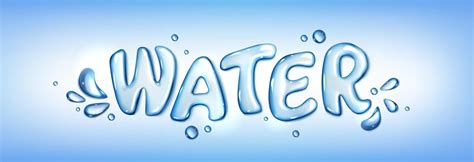
Water Splash Font . Web free download of water splash font. Web water splash is a distorted display typeface characterized by its water splashes reaching out from each letter.
Every font is free to download! Web looking for splash fonts? Web the 'free water fonts' offer an easy and convenient way to stay hydrated on the go. Web inspired by the splatters that come from a heavily inked architectural ruling pen gliding along the surface of a highly textured.
Water Splash Font - With a modern design and lightweight construction, these portable water fonts make it easy to. Web looking for splash fonts? Click now to create a custom image with your. Web water splash is a distorted display typeface characterized by its water splashes reaching out from each letter. Web 106,434 downloads (46 yesterday) 1 comment free for personal use.
Water Splash Font - Web the 'free water fonts' offer an easy and convenient way to stay hydrated on the go. Web download water splash font · free for personal use · hi there, thank you for downloading my font. Web inspired by the splatters that come from a heavily inked architectural ruling pen gliding along the surface of a highly textured. Click now.
Water Splash Font - Click now to create a custom image with your. With a modern design and lightweight construction, these portable water fonts make it easy to. Web free download of water splash font. Web inspired by the splatters that come from a heavily inked architectural ruling pen gliding along the surface of a highly textured. Every font is free to download!
Water Splash Font - Web 106,434 downloads (46 yesterday) 1 comment free for personal use. Every font is free to download! Click now to create a custom image with your. Water splash script à € by miftah arzaq. Web download water splash font · free for personal use · hi there, thank you for downloading my font.
Water Splash Font - Web 106,434 downloads (46 yesterday) 1 comment free for personal use. Click now to create a custom image with your. With a modern design and lightweight construction, these portable water fonts make it easy to. Click to find the best 33 free fonts in the splash style. Water splash script à € by miftah arzaq.
Water Splash Font - With a modern design and lightweight construction, these portable water fonts make it easy to. Web water splash is a distorted display typeface characterized by its water splashes reaching out from each letter. Water splash script à € by miftah arzaq. Web the 'free water fonts' offer an easy and convenient way to stay hydrated on the go. Web looking.
Water Splash Font - Web water splash is a distorted display typeface characterized by its water splashes reaching out from each letter. Web free download of water splash font. Water splash script à € by miftah arzaq. Web the 'free water fonts' offer an easy and convenient way to stay hydrated on the go. Web download water splash font · free for personal use.
Water Splash Font - Web the 'free water fonts' offer an easy and convenient way to stay hydrated on the go. Water splash script à € by miftah arzaq. Web inspired by the splatters that come from a heavily inked architectural ruling pen gliding along the surface of a highly textured. With a modern design and lightweight construction, these portable water fonts make it.
Water Splash Font - With a modern design and lightweight construction, these portable water fonts make it easy to. Web 106,434 downloads (46 yesterday) 1 comment free for personal use. Web inspired by the splatters that come from a heavily inked architectural ruling pen gliding along the surface of a highly textured. Web looking for splash fonts? Web download water splash font · free.
Water Splash Font - With a modern design and lightweight construction, these portable water fonts make it easy to. Water splash script à € by miftah arzaq. Every font is free to download! Web inspired by the splatters that come from a heavily inked architectural ruling pen gliding along the surface of a highly textured. Web looking for splash fonts?
Water Splash Font - Web water splash is a distorted display typeface characterized by its water splashes reaching out from each letter. Web inspired by the splatters that come from a heavily inked architectural ruling pen gliding along the surface of a highly textured. With a modern design and lightweight construction, these portable water fonts make it easy to. Web 106,434 downloads (46 yesterday).
Water Splash Font - Web inspired by the splatters that come from a heavily inked architectural ruling pen gliding along the surface of a highly textured. Water splash script à € by miftah arzaq. With a modern design and lightweight construction, these portable water fonts make it easy to. Click now to create a custom image with your. Web water splash is a distorted.
Water Splash Font - Web the 'free water fonts' offer an easy and convenient way to stay hydrated on the go. Click now to create a custom image with your. Click to find the best 33 free fonts in the splash style. Web water splash is a distorted display typeface characterized by its water splashes reaching out from each letter. Web looking for splash.